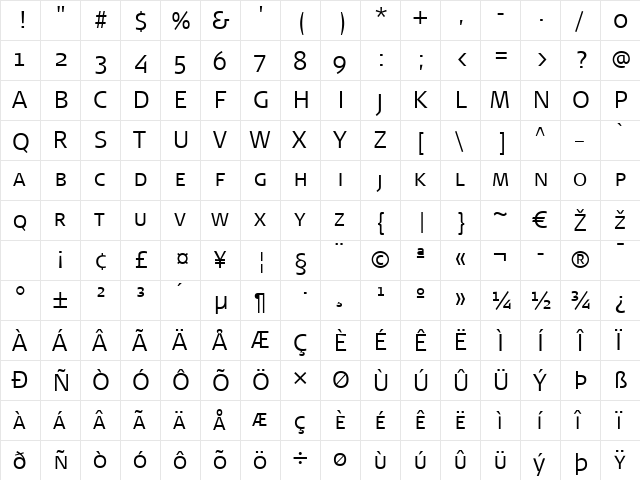
SignaCaps-Light Regular
| Designer | Ole Soendergaard |
Design Context for SignaCaps-Light Typeface
SignaCaps-Light offers clean, dependable letterforms without strong stylistic allegiance, making it a practical choice for designers who need flexibility. Its slender proportions lend an understated elegance to any composition.
Pro Tip: Pair SignaCaps-Light with a font of contrasting weight or personality to build a more expressive typographic hierarchy.